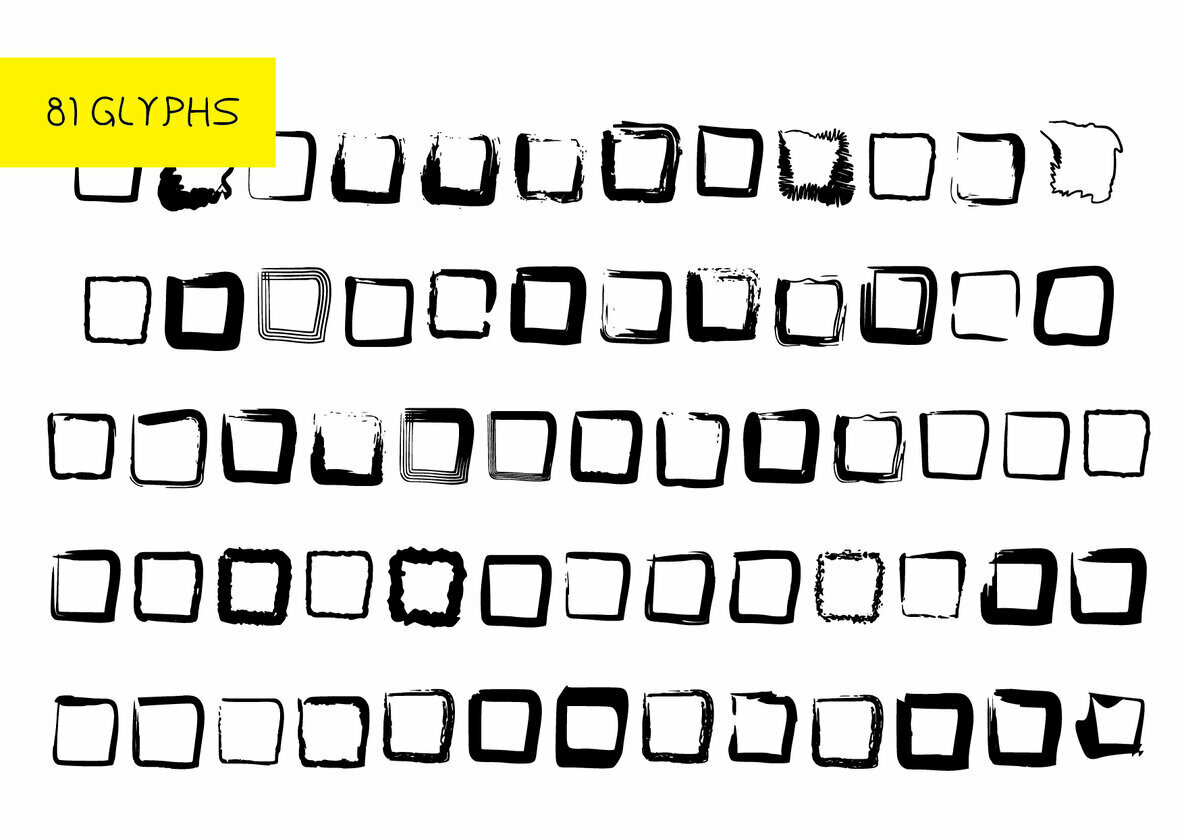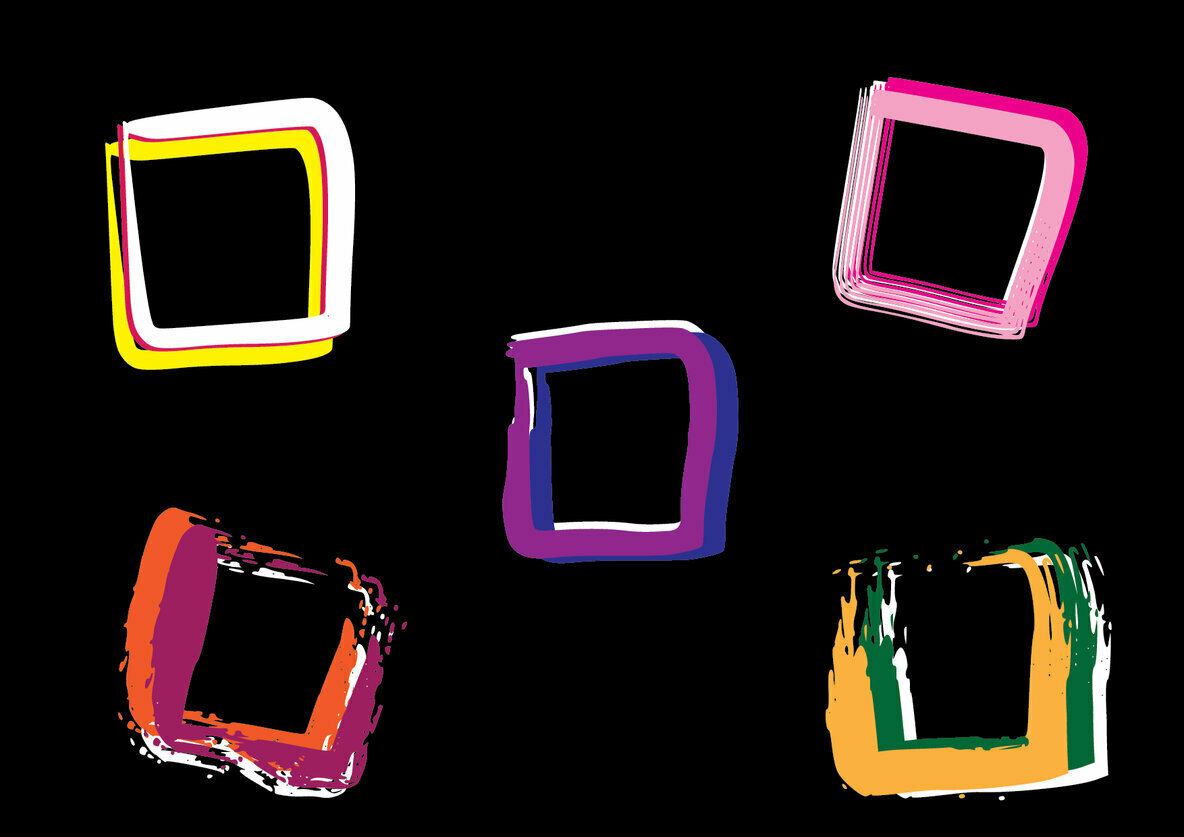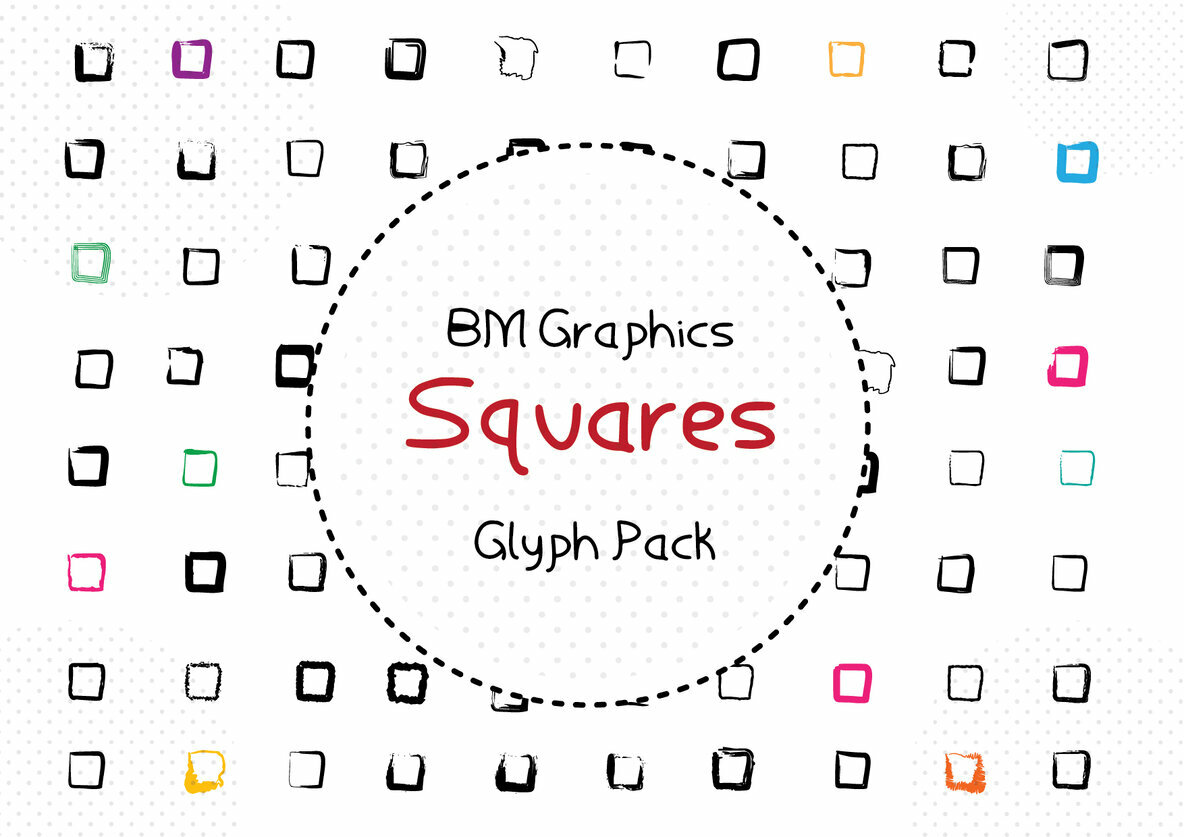
BM Graphics - Squares Font
BM Graphics Squares
BM Graphics - Squares is a stunning dingbats font that combines 81 Glyphs. Use it for any design project that requires a hand drawn look and feel, there are so many to choose from!